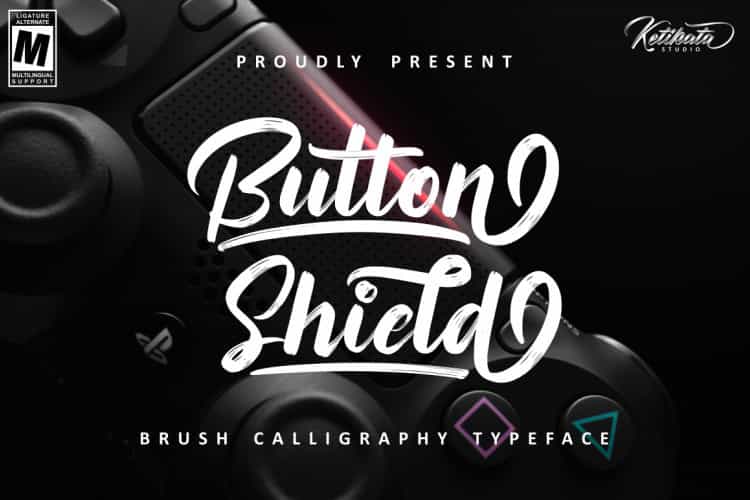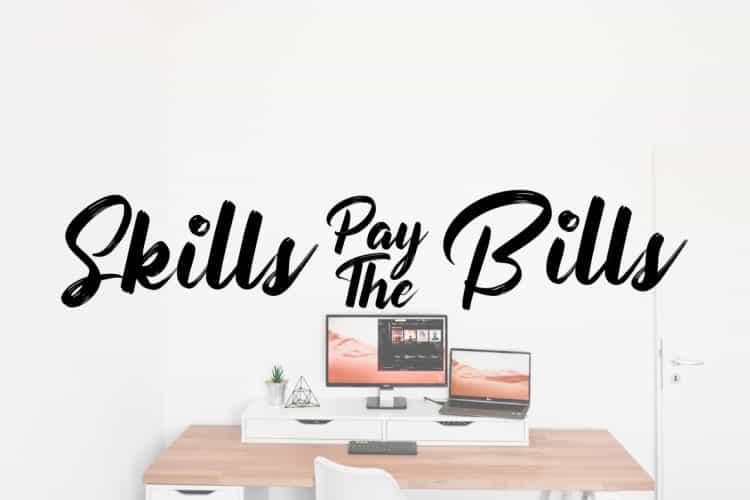
Introducing Button Shield Font. It’s made and distributed by Ketikata Studio. Button Shield is a one of a kind hand written brush font. Its special flow and style make it ideal for prints, logos, quotes, badges, labels, packaging design or blog headlines.